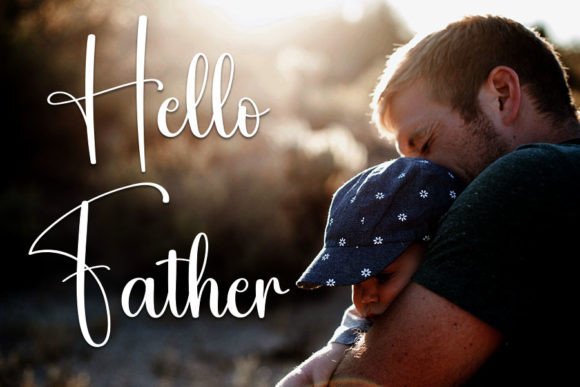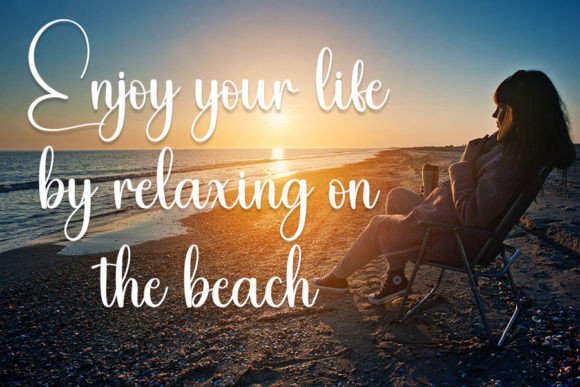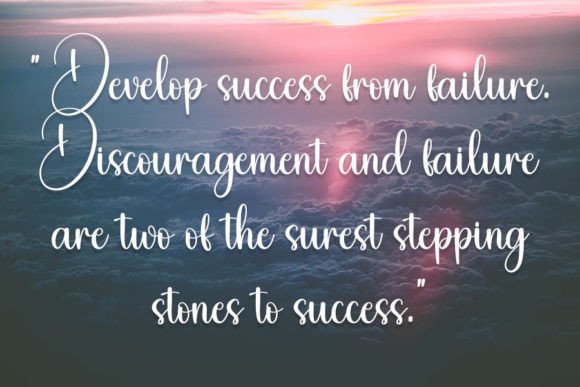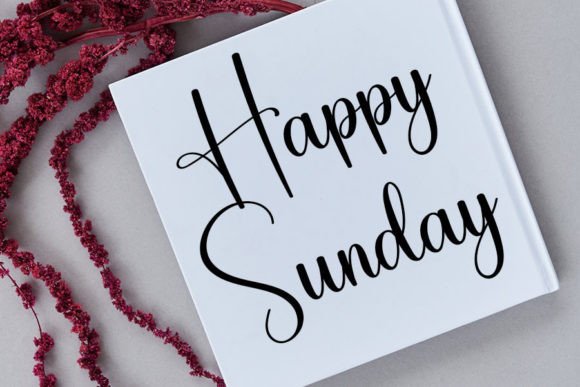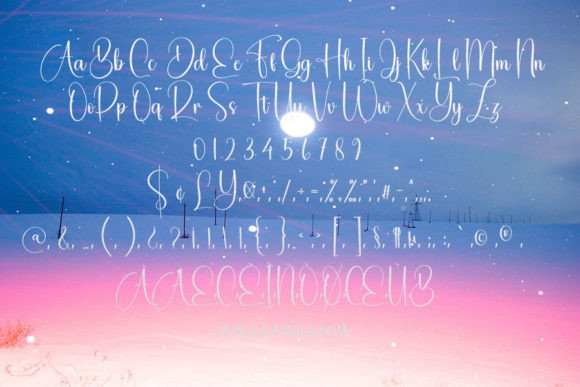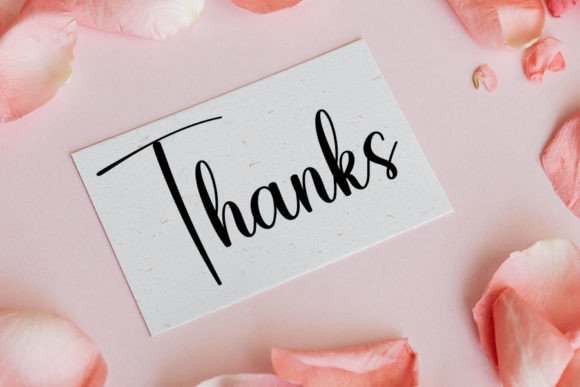
The Anime Font: A Simple yet Versatile Handwritten Delight
I’ll never forget the time I was working on a project for a client’s birthday card. I had all the design elements in place – the colors, the graphics, the overall aesthetic – but something was missing. The font I was using just didn’t feel right. It was too formal, too stiff, and it completely threw off the vibe I was going for. That’s when I stumbled upon the Anime font, and let me tell you, it was like a breath of fresh air! ✨
I’ve had the pleasure of working with the Anime font for a while now, and here’s my honest review:
- ✅ It’s ridiculously easy to read, even at small sizes
- ✨ The handwritten feel is simple and natural, making it perfect for a wide range of projects
- ✅ It’s incredibly versatile – I’ve used it for greeting cards, headlines, and even body text
- ✅ The font comes with a range of OpenType features, including glyphs and stylistic alternates
Of course, no font is perfect, and there are a few quirks to be aware of:
- ⚠️ Some of the letters feel a bit cramped, especially when used at larger sizes
- 🤔 The font doesn’t have a huge range of weights, which can limit its use in certain design situations
One of the best things about the Anime font is its range of OpenType features, including glyphs and stylistic alternates. These features allow you to customize the font to suit your design needs. For example, you can use:
- Ligatures to create a more natural, handwritten feel
- Stylistic alternates to add some visual interest to your text
- Glyphs to add decorative elements, like flourishes or swashes
The Designer Inspiration Behind Anime Font
The Anime font was designed with the goal of creating a simple, natural-looking handwritten font that could be used for a wide range of projects. The designer wanted to create a font that felt approachable and friendly, without sacrificing legibility or versatility.
| Font Name | Anime Font |
| Author | Ganden Letter |
| What is the Anime font best used for? | The Anime font is perfect for projects that need a simple, natural-looking handwritten feel, such as greeting cards, headlines, and body text. |
| Is the Anime font suitable for large-scale projects? | Yes! The Anime font is highly legible, even at small sizes, making it suitable for large-scale projects like posters, billboards, and magazine ads. |
| Does the Anime font come with any special features? | Yes! The Anime font comes with a range of OpenType features, including glyphs and stylistic alternates, which allow you to customize the font to suit your design needs. |